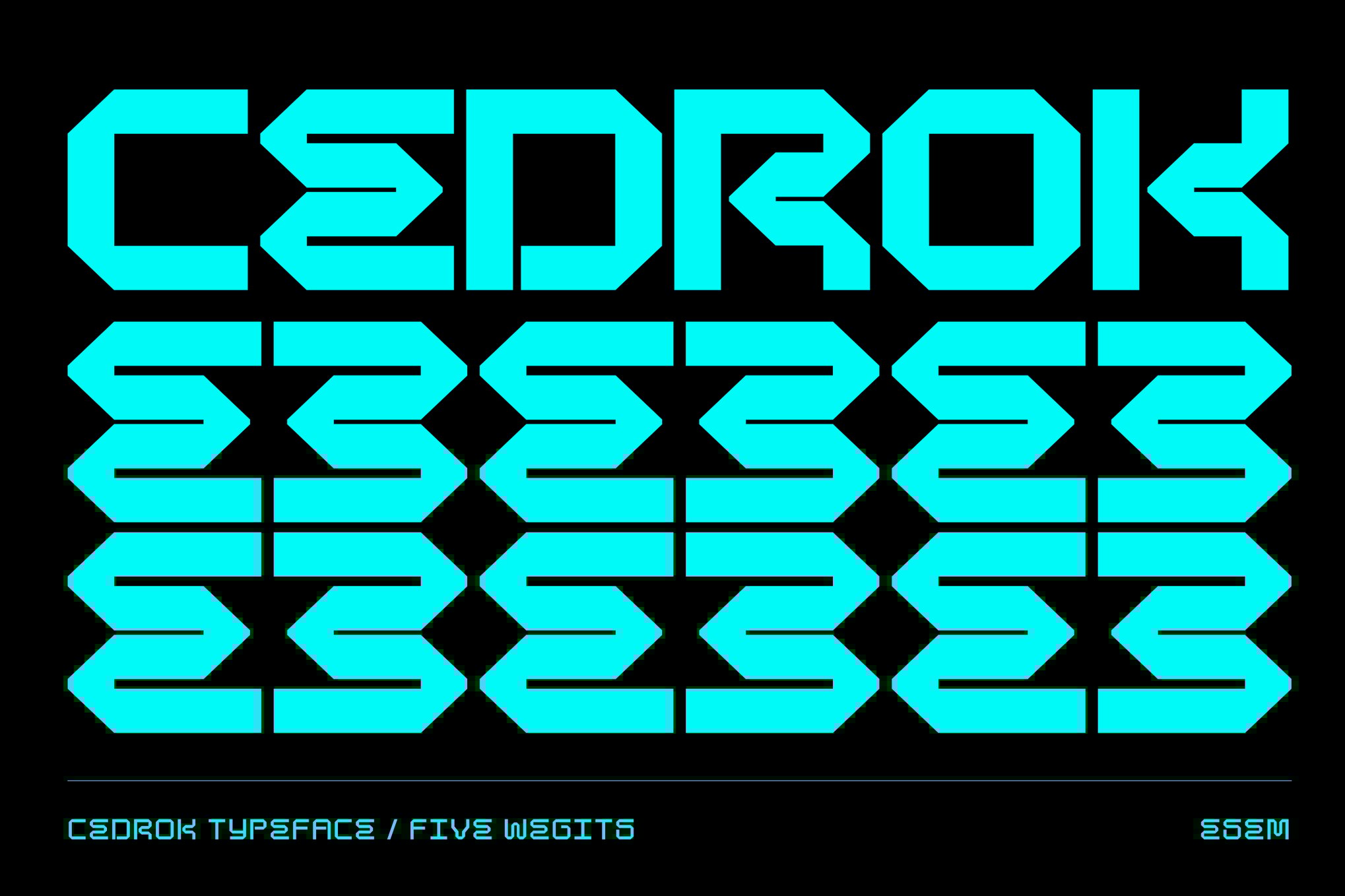
Cedrok Font Family
Cedrok Font Family is a professionally designed typeface that delivers clarity, structure, and consistent performance across various design applications. Cedrok is a bold industrial display typeface inspired by machine geometry, cyber aesthetics and futuristic interfaces.
The font features strong angular shapes, technical cuts and a mechanical rhythm that gives every word a powerful technological feel. Cedrok works perfectly for sci-fi projects, gaming graphics, tech branding, posters, logos and futuristic UI designs.
Its sharp construction and modular structure make it ideal for designs that require a strong, modern and industrial personality.